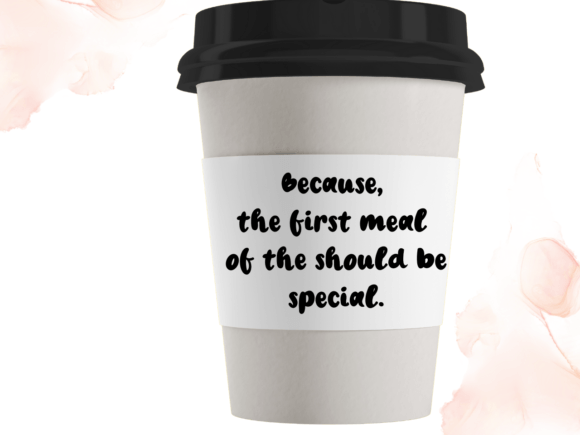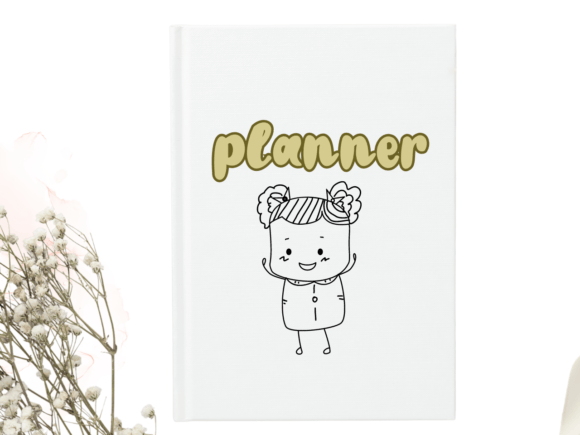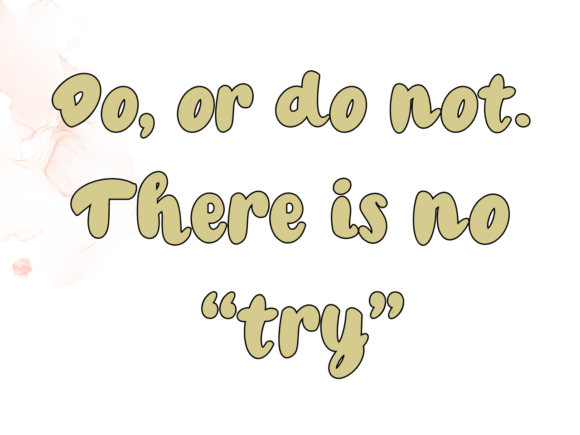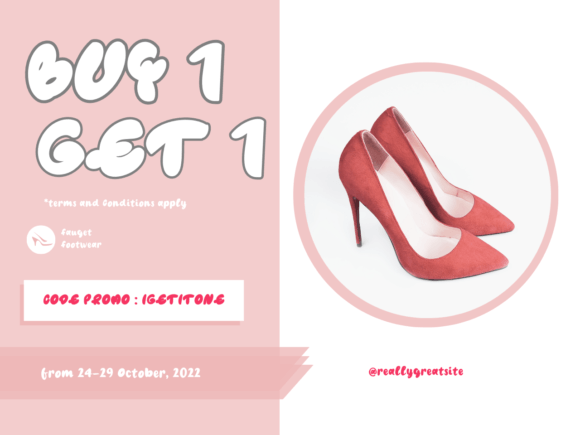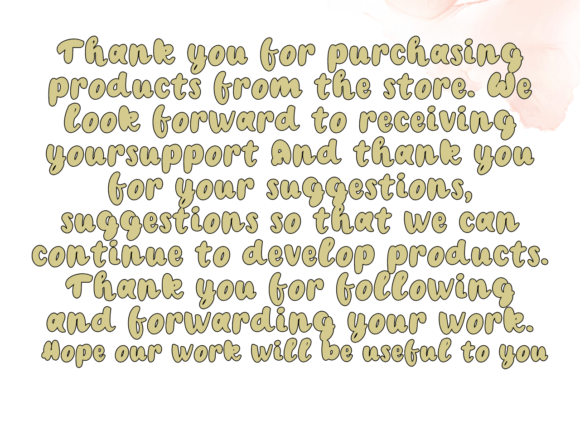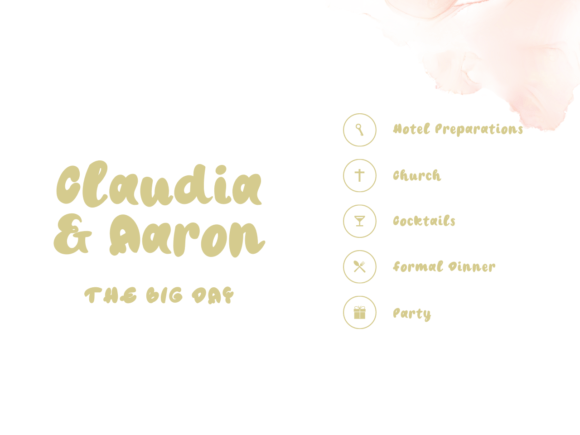
Introduction to Nong Round Font
Nong Round is a fun, bubbly, and bold script display font that exudes playful energy.
Its rounded characters dance with whimsy, bringing a sense of joy to any design Perfect for creative projects, party invitations, and cheerful branding, Nong Round delivers a delightful charm that will instantly lift spirits and infuse your creations with a vibrant personality.